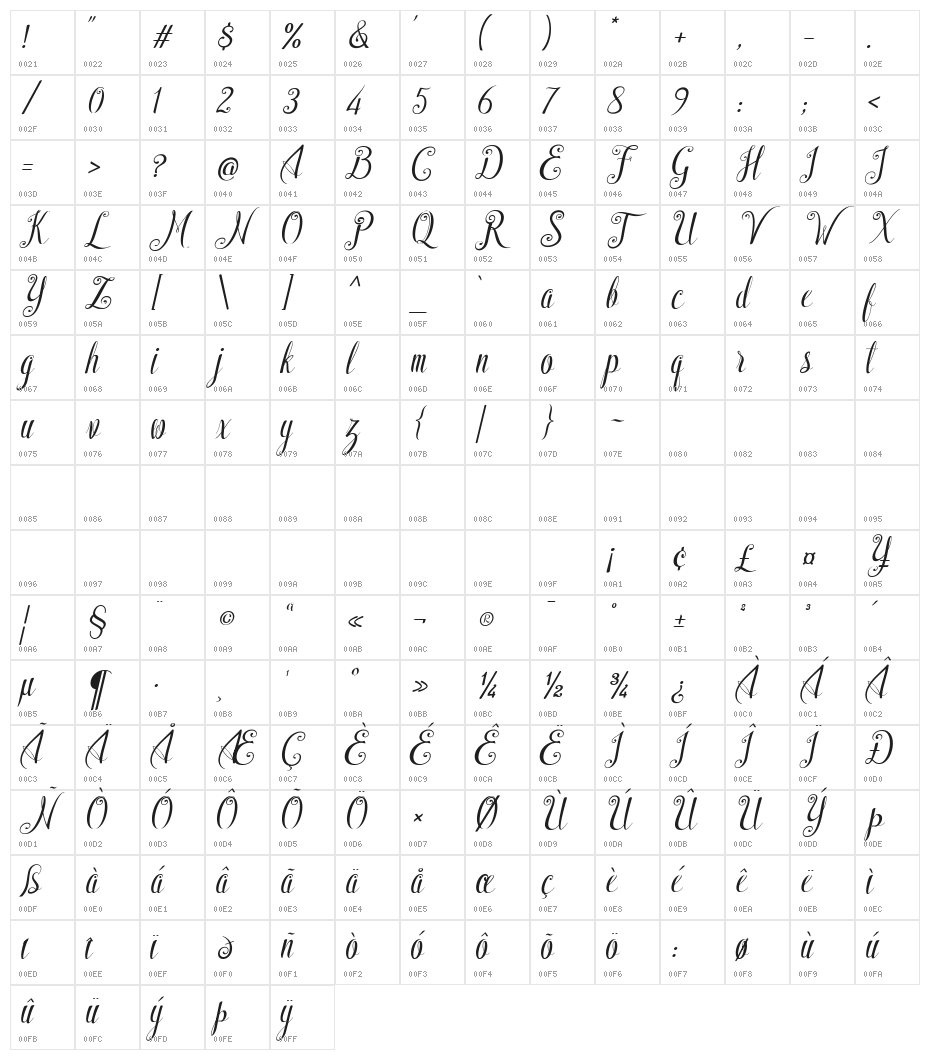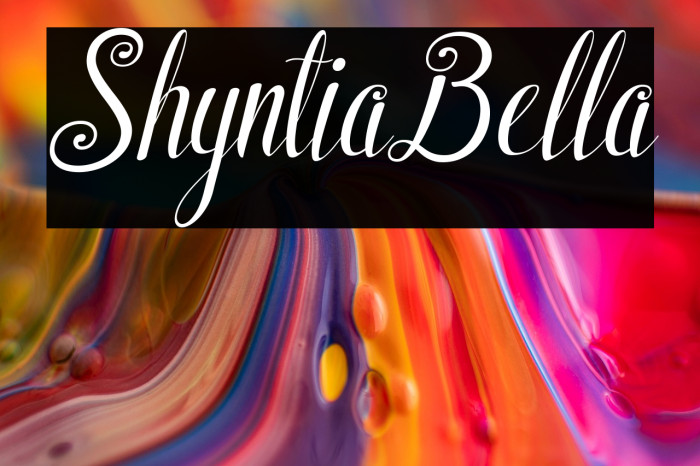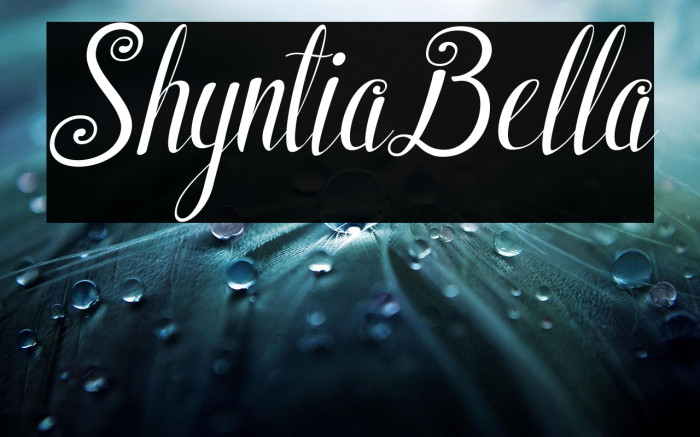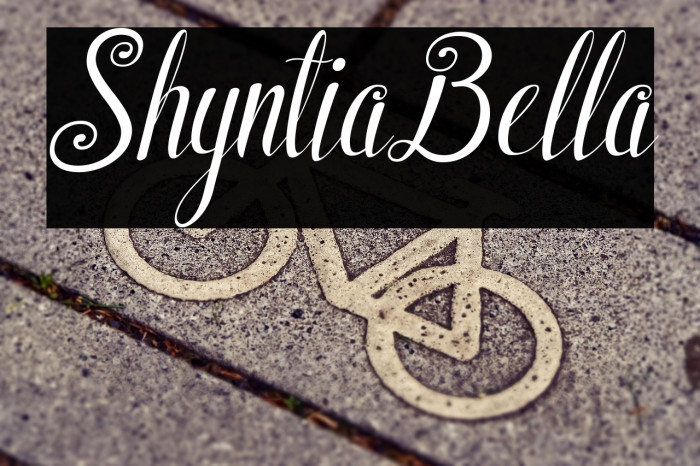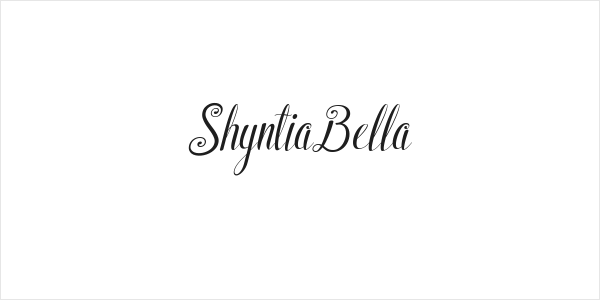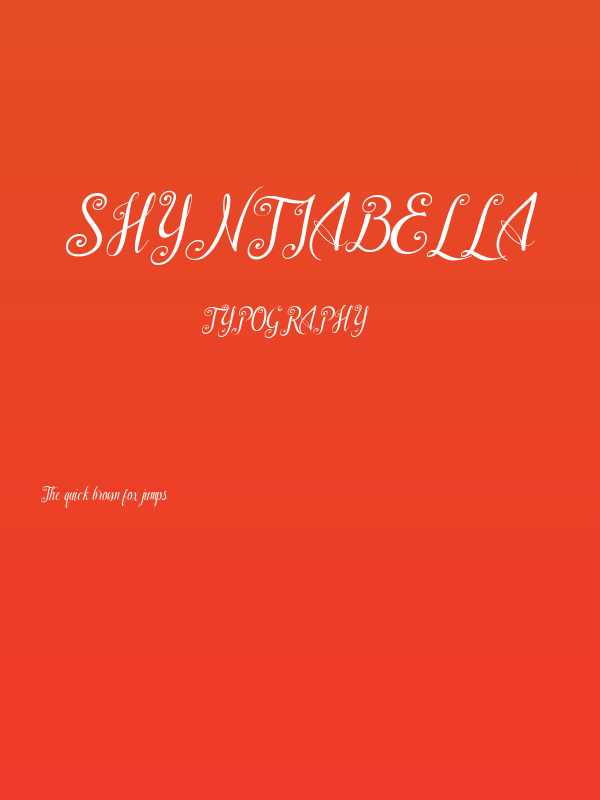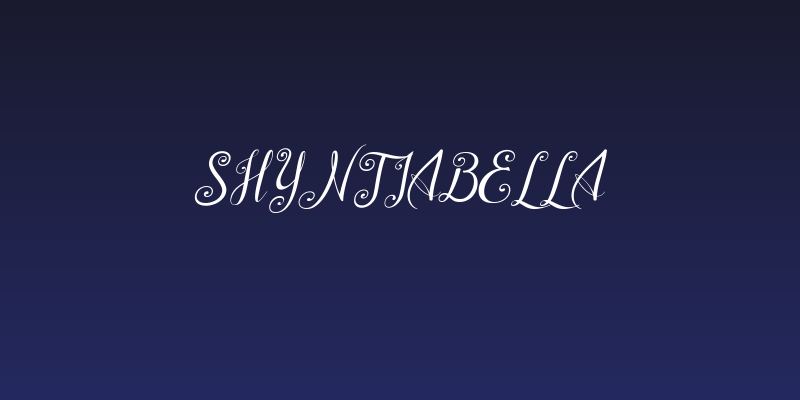
ShyntiaBella Font
ShyntiaBella Description
This elegant script font features a flowing, cursive style with elaborate swashes and flourishes that give it a sophisticated and decorative appearance. The uppercase letters are particularly ornate, with intricate loops and curves that add a sense of movement and grace. The lowercase letters maintain a consistent style, with smooth connections between characters that enhance readability while retaining the font's decorative nature. The numerals and special characters are designed to match the overall aesthetic, making this font suitable for a variety of creative applications.
| Use Case | Headlines, Logos, Invitations |
| Proposed Projects | Ideal for wedding invitations, elegant branding, greeting cards, and decorative headlines. |